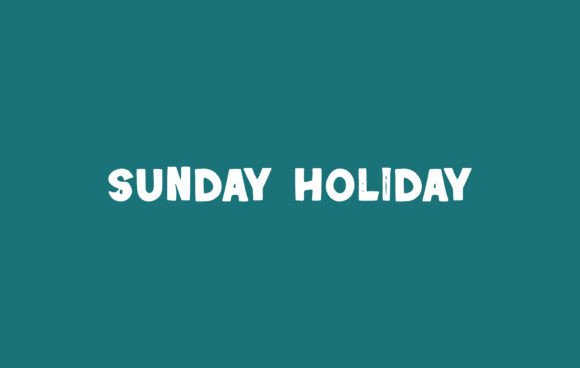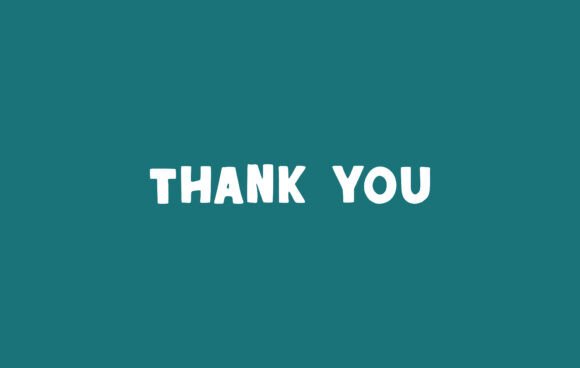
Discover the Charm of Amir Font: Elevate Your Designs with a Romantic Touch
In the world of typography, fonts play a crucial role in bringing creative ideas to life. Among the numerous fonts available, Amir Font stands out as a unique and captivating handwritten font that adds a romantic touch to any design. In this article, we’ll explore the features and benefits of Amir Font, and how it can elevate your designs to new heights.
What is Amir Font?
Amir Font is an authentic handwritten font, carefully crafted to exude a sense of romance and elegance. Its distinctive style is designed to capture the hearts of designers and crafters, making it a true favorite among typography enthusiasts. With its legible and versatile nature, Amir Font can be used for a wide range of design applications, from titles and body text to headlines and captions.
Key Features of Amir Font
- Romantic Touch: Amir Font boasts a unique, handwritten style that adds a touch of romance and whimsy to any design.
- Legibility: The font is designed to be highly legible, making it perfect for use in body text, titles, and headlines.
- Versatility: Amir Font can be used for a variety of design applications, including magazine headlines, social media graphics, branding, wedding invitations, and more.
- Elegant Style: The font’s elegant style makes it suitable for designs that require a sophisticated and refined look.
Uses of Amir Font
Amir Font’s versatility makes it an excellent choice for various design projects. Here are some ideas to get you started:
- Magazine Headlines: Use Amir Font to create eye-catching headlines that grab readers’ attention.
- Social Media Graphics: Add a touch of elegance to your social media posts and stories with Amir Font.
- Branding: Use Amir Font to create a unique and memorable brand identity.
- Wedding Invitations: Add a romantic touch to your wedding invitations and stationery with Amir Font.
- Cards and Stationery: Use Amir Font to create beautiful and elegant cards, letters, and other stationery.
Benefits of Using Amir Font
Amir Font offers several benefits that make it an excellent choice for designers and crafters:
- Unique Style: Amir Font’s distinctive style sets it apart from other fonts, making it a great way to add personality to your designs.
- Time-Saving: With Amir Font, you can create professional-looking designs quickly and easily.
- Customization: The font’s versatility allows for endless customization options, ensuring your designs are always unique.
- High-Quality: Amir Font is designed to deliver high-quality results, making it perfect for print and digital applications.
Amir Font is a beautiful and versatile handwritten font that can elevate your designs to new heights. With its romantic touch, legibility, and elegance, it’s perfect for a wide range of design applications. Whether you’re a designer, crafter, or DIY enthusiast, Amir Font is an excellent choice for adding a touch of sophistication and whimsy to your projects. So why wait? Discover the charm of Amir Font today and take your designs to the next level!